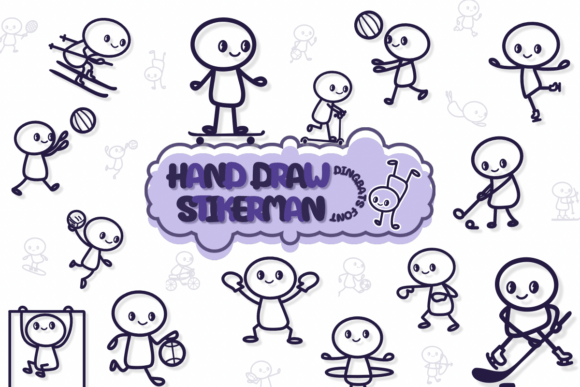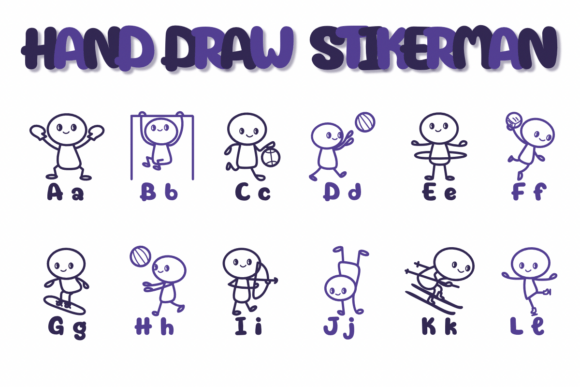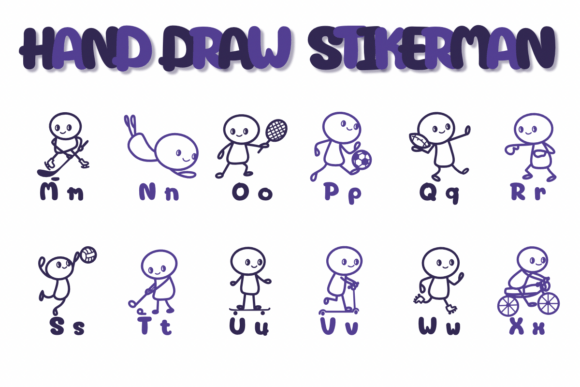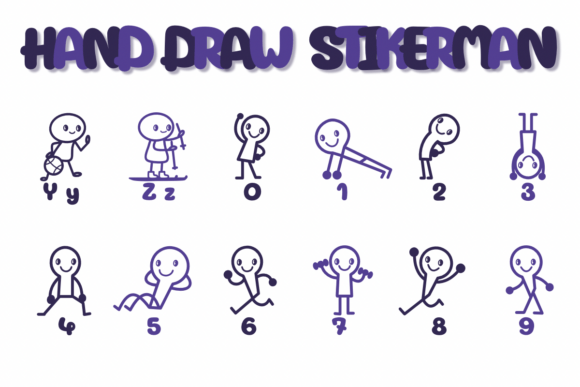
Hand Draw Stikerman Font
About the Hand Draw Stikerman Font
The Hand Draw Stikerman Font offers a perfect balance of form and function for your design needs. Hand Draw Stikerman is a whimsical dingbats font filled with delightful stick figure characters engaged in various sports and activities. Perfect for sport-themed designs, educational materials, kids’ projects, digital stickers, and comics, this font brings a playful and energetic vibe to any design. Just type to insert an illustration—no drawing required!
Hand Draw Stikerman excels in applications requiring a lighthearted and approachable aesthetic. It’s ideal for headlines, short captions, logos for children’s products or playful brands, and social media graphics. Avoid using it for large blocks of text or body copy; its whimsical nature makes it unsuitable for lengthy reads or UI elements where readability is paramount.
Consider pairing it with a clean sans-serif font like Open Sans for a balanced contrast, or a playful rounded sans-serif like Bubblegum Sans to enhance the fun energy. For a more sophisticated look, a simple serif like Lora can add a touch of elegance without overwhelming the stick figure charm.
The overall personality is undeniably playful and energetic, making it a perfect choice for brands targeting a young audience or projects needing a boost of fun and visual interest.
Hand Draw Stikerman Font Usage Examples
Hand Draw Stikerman Font Example